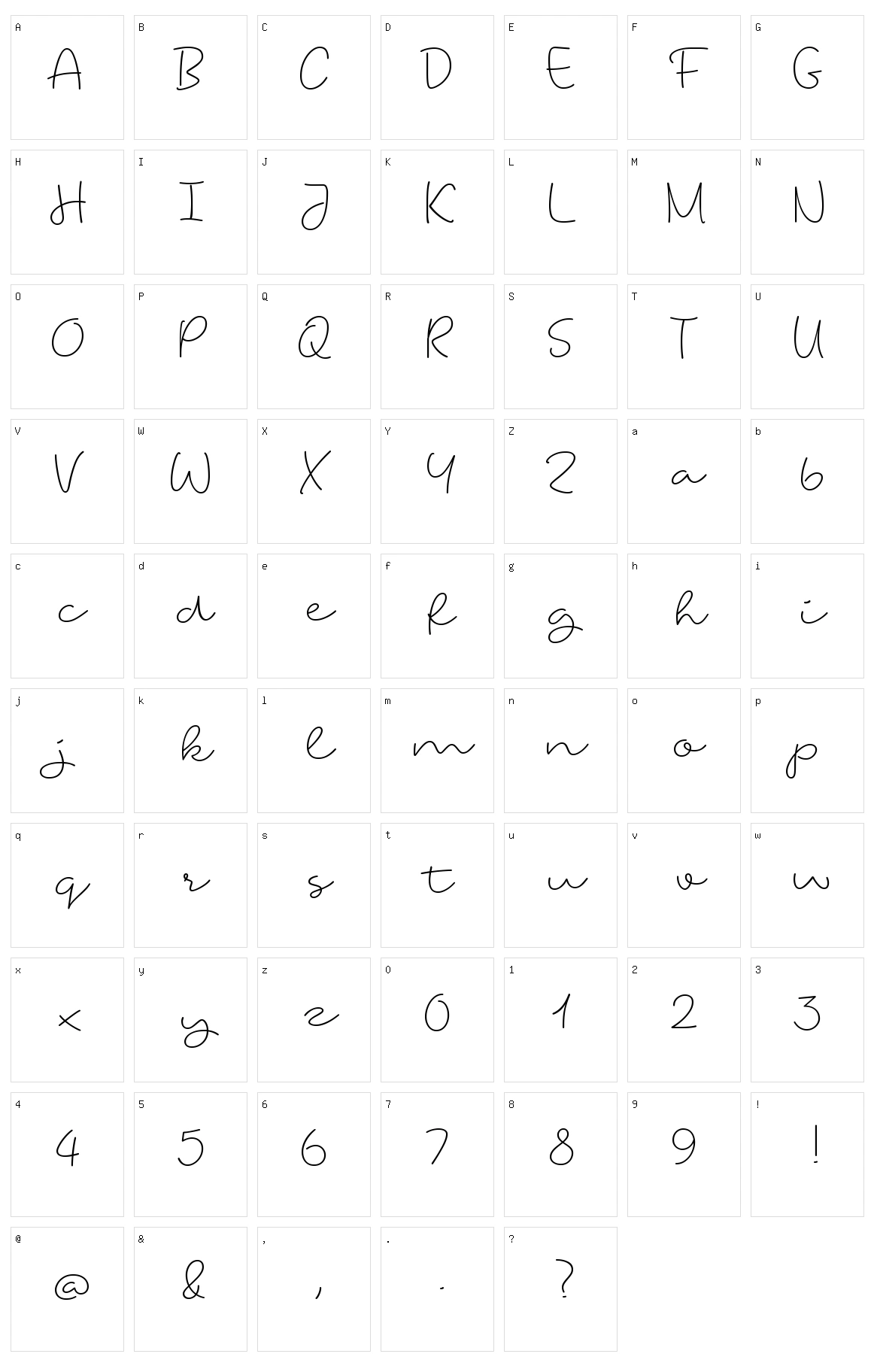
The free font Long Story Short is carefully designed by Roland Huse Design, showcasing a thoughtful balance of creativity and usability and falls under the Script font style. When you download the ZIP file, it contains only 609.34 KB of font files, making it lightweight and quick to download. Please review the license details below to understand permitted usage and distribution rights. If license information is not available, we recommend using this font for personal projects only or contacting the author directly for commercial usage permissions.